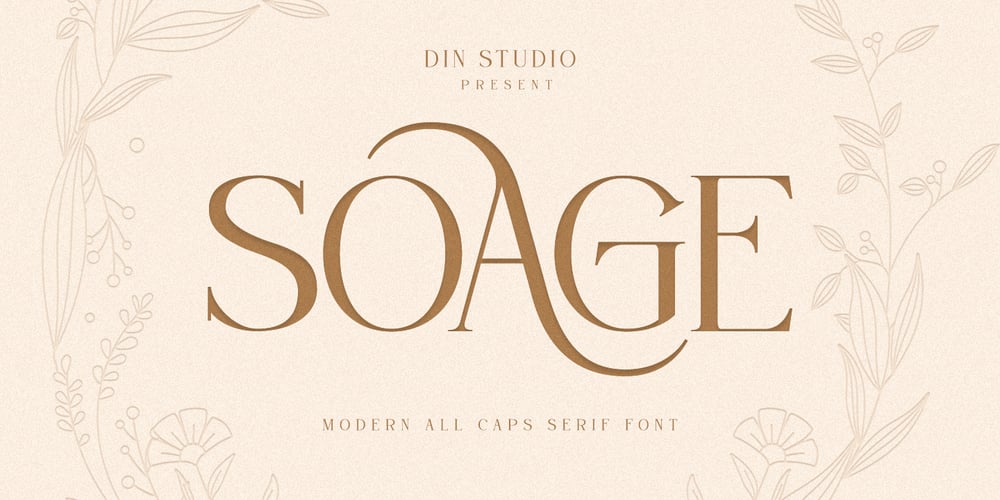
Soage Font Family was designed by Donis Miftahudin and published by Din Studio. Soage contains 1 styles and family package options. Soage is modern sans serif font. Made for any professional project branding. It is the best for branding, printing, wedding and quotes. Every letter has a unique and beautiful touch.Features: Alternates Stylistic Set PUA Encoded Multilingual Support Numerals and Punctuation Thank you for downloading premium fonts from Din Studio